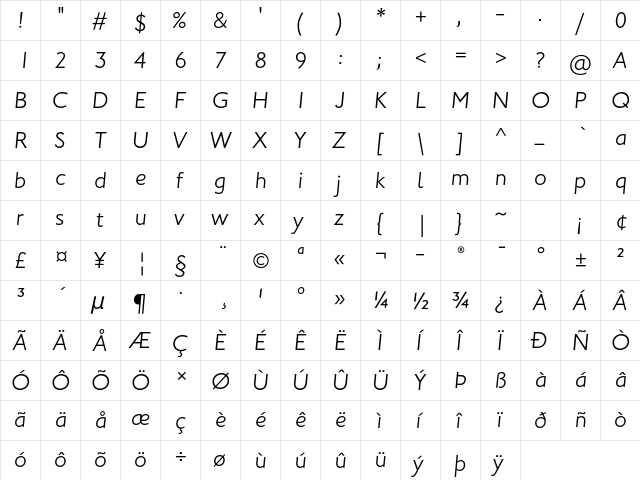
Johnston ITC Std Light Italic Font Preview
| Designer | Dave Farey and Richard Dawson |
Design Context for Johnston ITC Std Typeface
Johnston ITC Std takes a measured approach to typography — its balanced proportions and neutral character make it a reliable workhorse for both digital and print work. The dynamic lean of this cut emphasises speed and emphasis in any layout. The delicate stroke weight brings airiness and refinement to layouts.